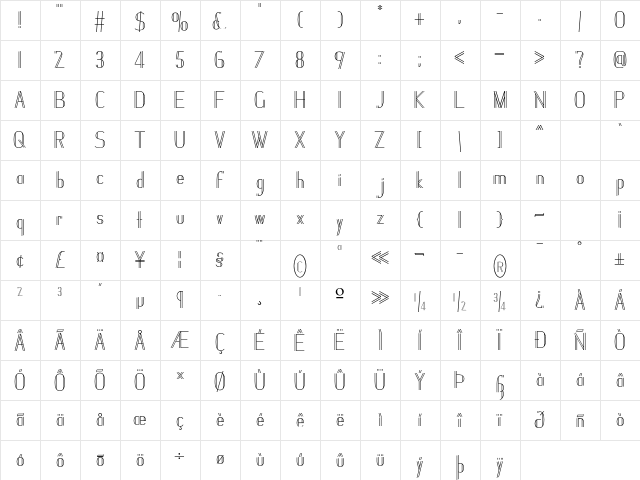
Janesville 51 Regular Font Preview
Janesville 51 Regular
Janesville 51 Regular Font Details
| Designer | PJL |
Design Context for Janesville 51 Typeface
Janesville 51 takes a measured approach to typography — its balanced proportions and neutral character make it a reliable workhorse for both digital and print work.